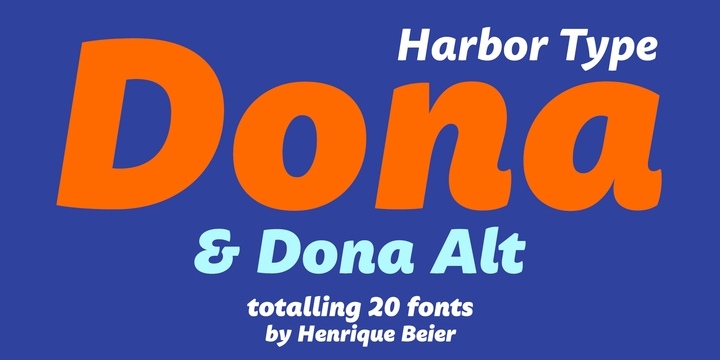
Dona Font
Dona Font is perfect for feminine brand logos, boutique signage, elegant wedding invitations, beauty salon advertising, fashion magazine headers, luxury cosmetic packaging, jewelry store branding, spa and wellness materials, sophisticated greeting cards, and upscale lifestyle publications.
What makes Dona Font so exciting is its exceptional ability to embody grace, elegance, and feminine sophistication through every carefully crafted letterform. This stunning typeface captures the essence of timeless beauty and refined taste with characters that flow with natural elegance and understated luxury. The font's delicate design elements perfectly balance strength with femininity, creating a versatile tool that communicates both confidence and grace, making it an ideal choice for brands targeting sophisticated audiences who appreciate refined aesthetic sensibilities.
Dona Font comes in multiple font families including Regular, Bold, Light, Italic, Bold Italic, Thin, Medium, and Elegant variations. Each family member maintains the core sophisticated characteristics while offering different refinement levels and stylistic approaches to suit various luxury design requirements.
The meticulous attention to proportion in Dona Font makes it particularly suitable for premium markets where visual refinement is paramount. Its versatile design maintains excellent readability across various applications, from delicate jewelry tags to bold storefront signage, while preserving the sophisticated charm that appeals to quality-conscious consumers.
Professional designers working in luxury and lifestyle markets appreciate how Dona Font elevates ordinary text into elegant statements of refined taste. The typeface's comprehensive character set includes special decorative elements and stylistic alternates that enhance the overall sophisticated atmosphere of any design project.
For creative professionals serving high-end clients in fashion, beauty, and luxury industries, Dona Font provides the perfect foundation for establishing memorable visual identities that capture the essence of feminine elegance and sophisticated style that never goes out of fashion.